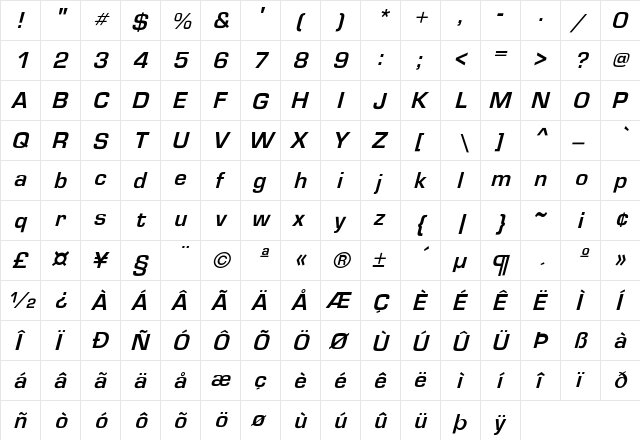
Continental-Bold Regular
Design Context for Continental-Bold Typeface
Continental-Bold offers clean, dependable letterforms without strong stylistic allegiance, making it a practical choice for designers who need flexibility. Its bold stroke weight gives it real presence on the page.
Pro Tip: Use Continental-Bold in both headline and body roles to test its range before committing to a single application.